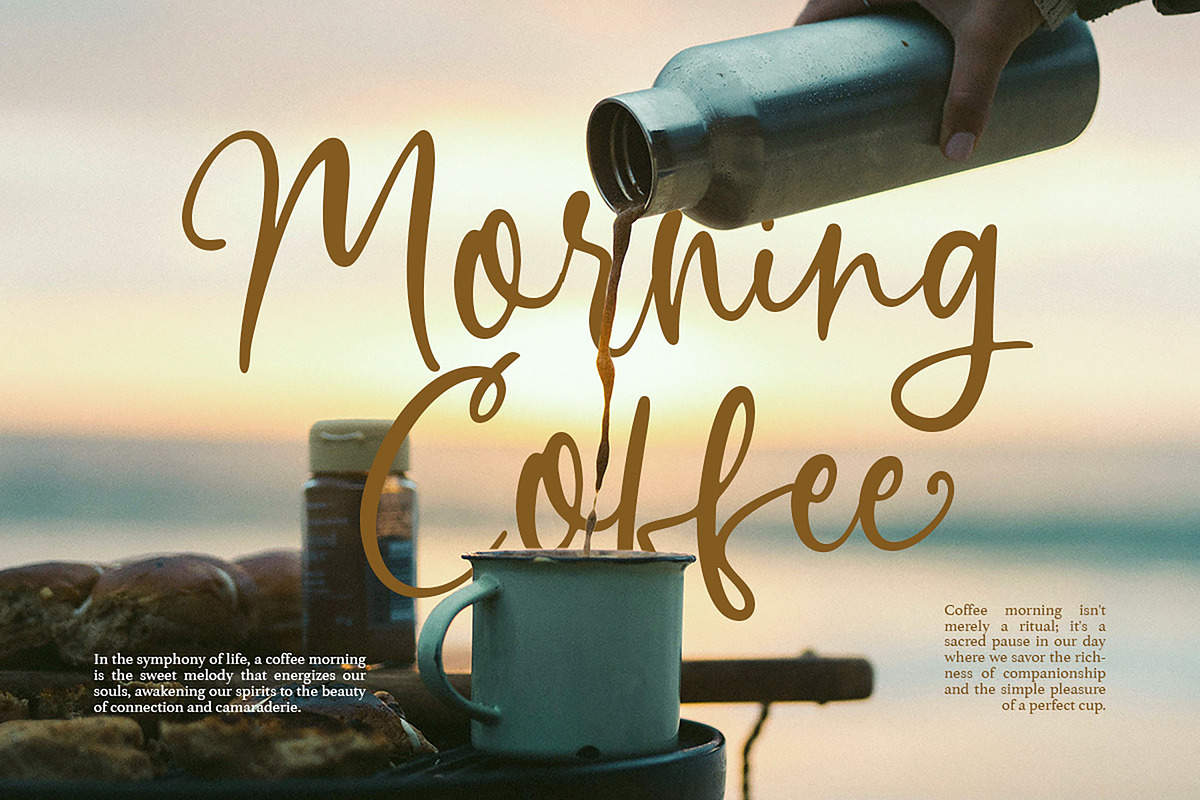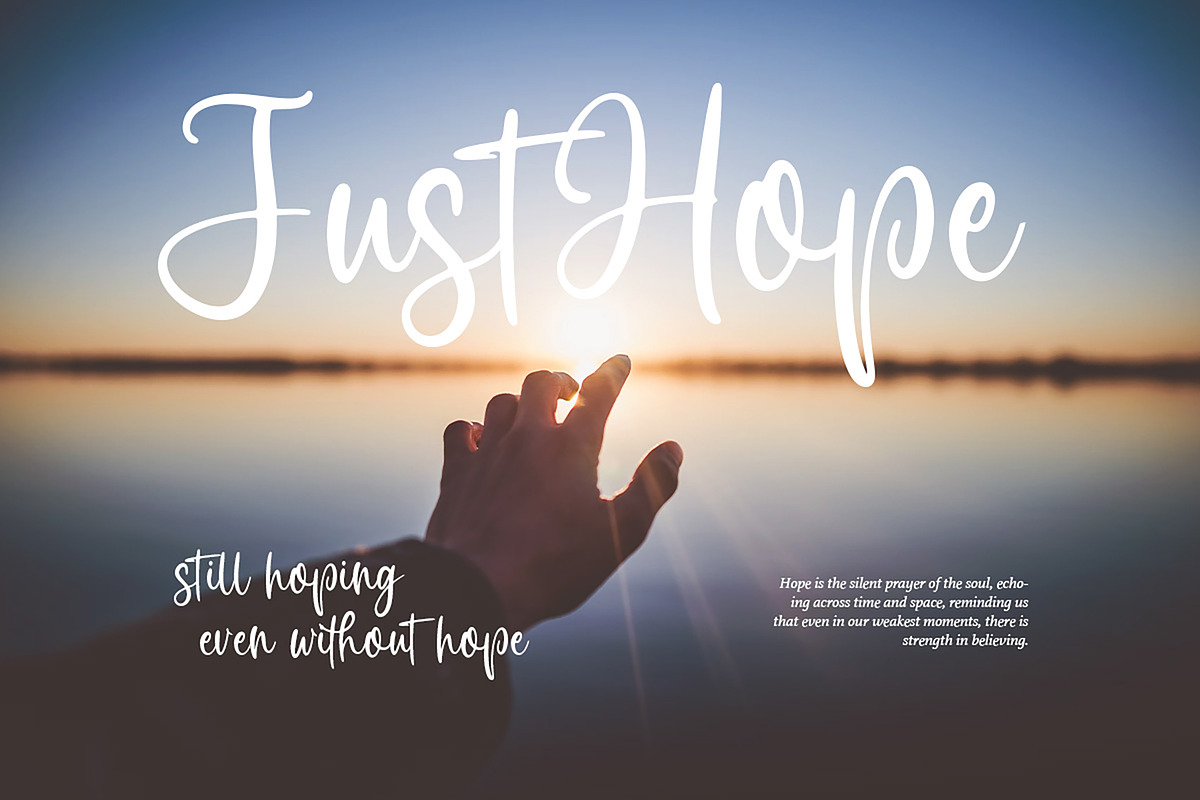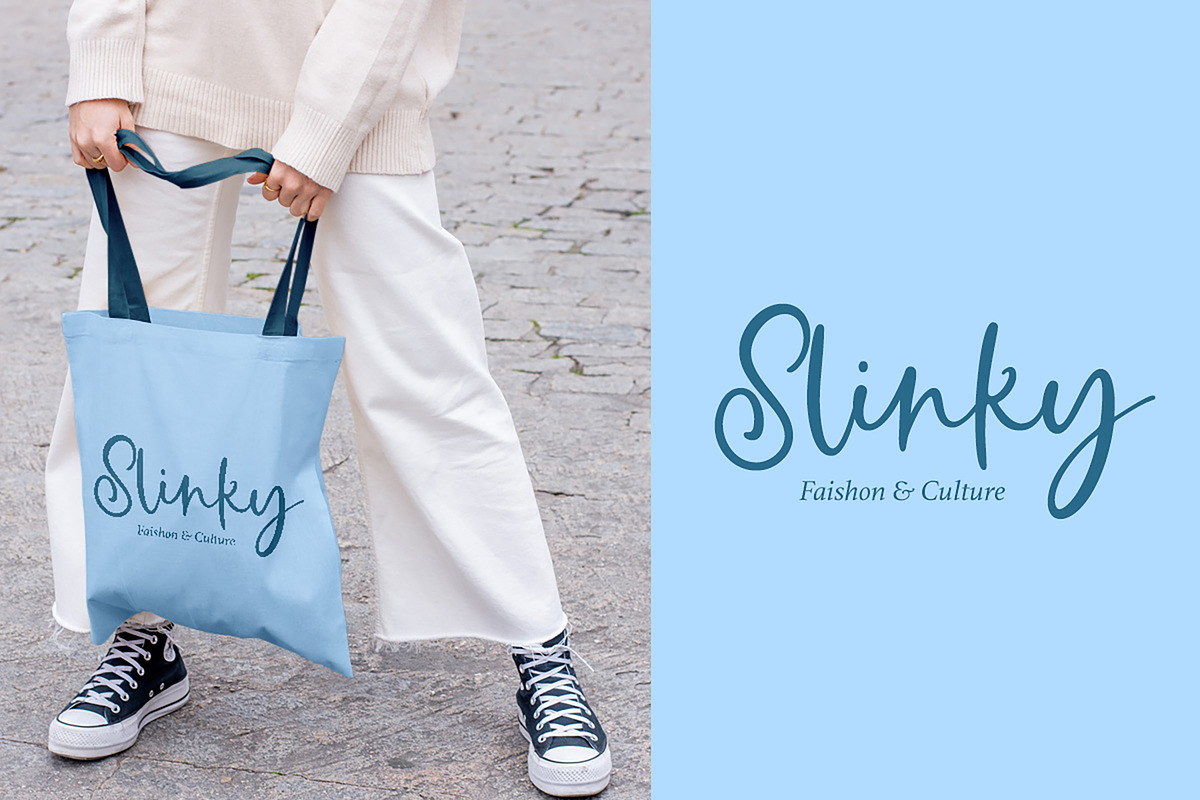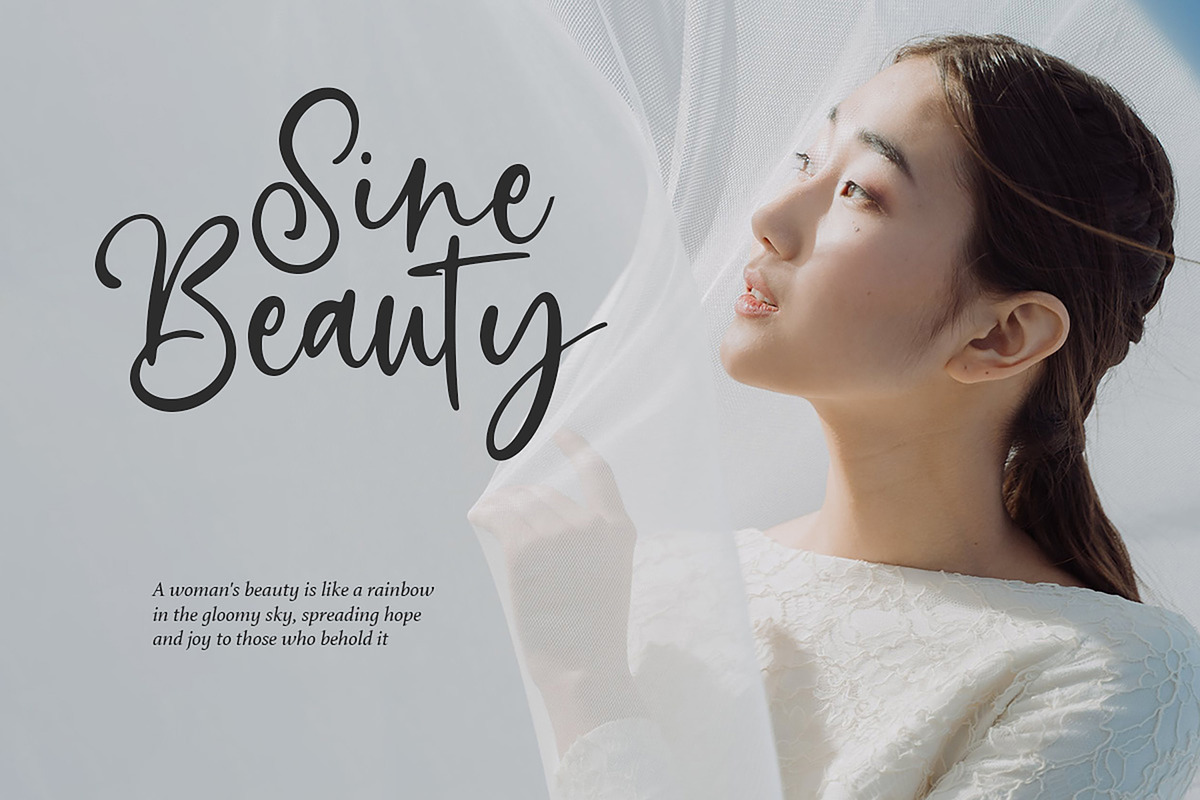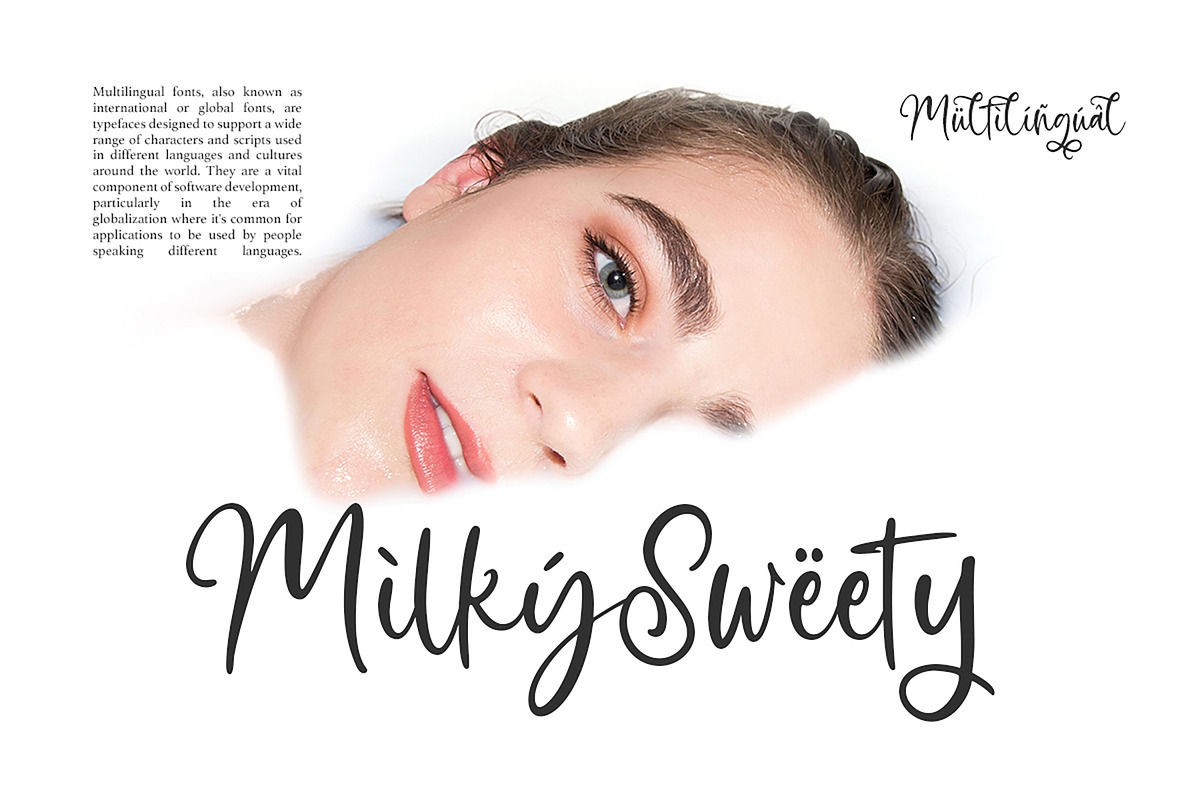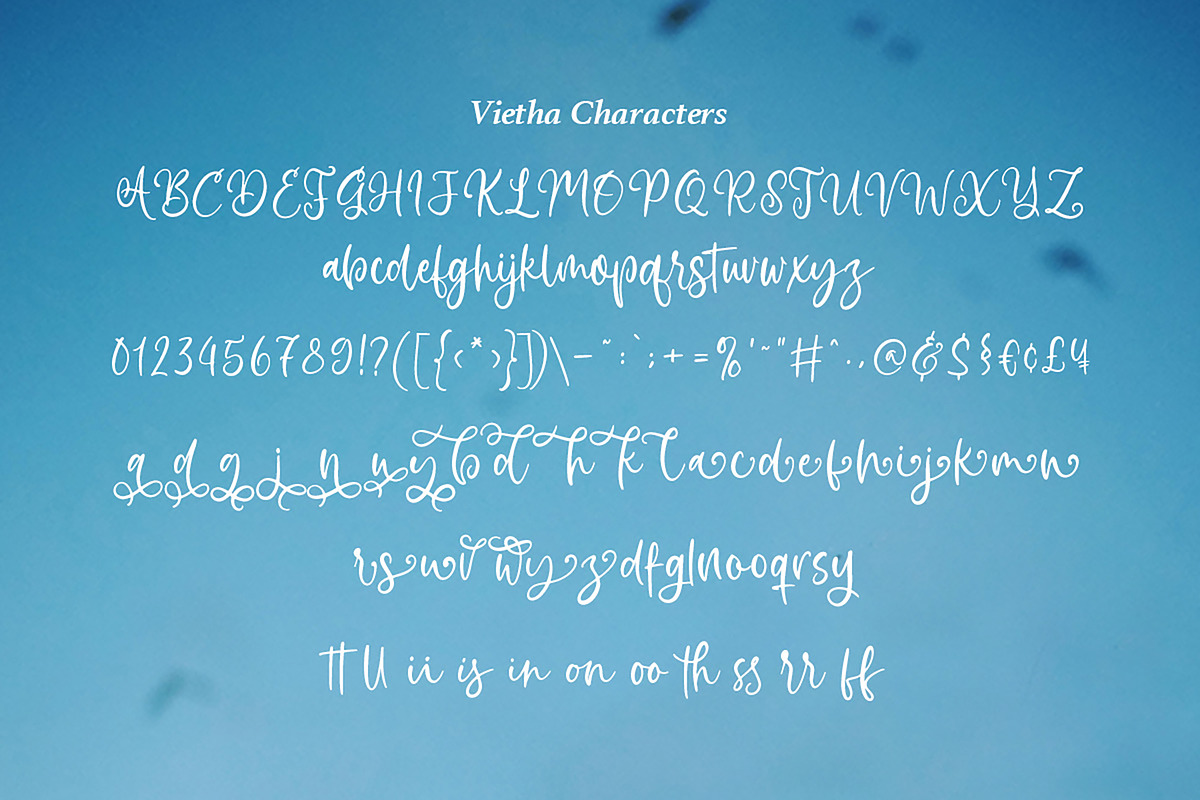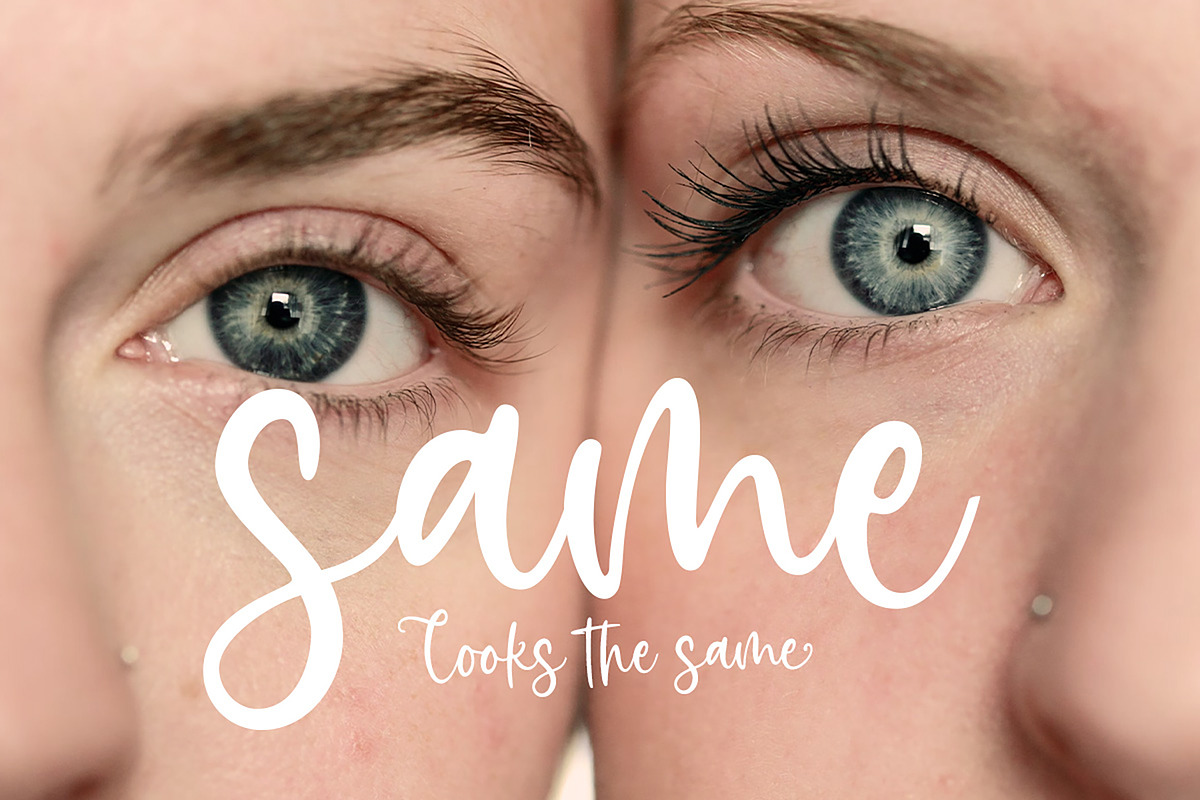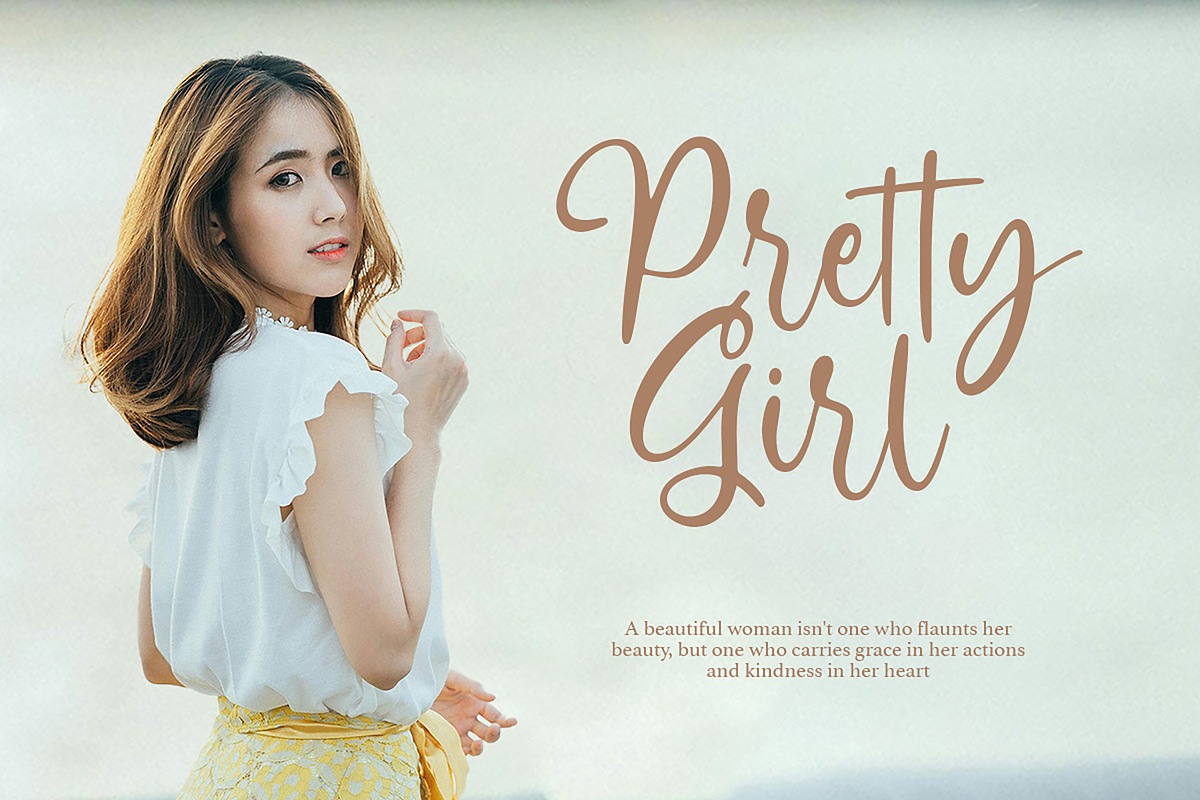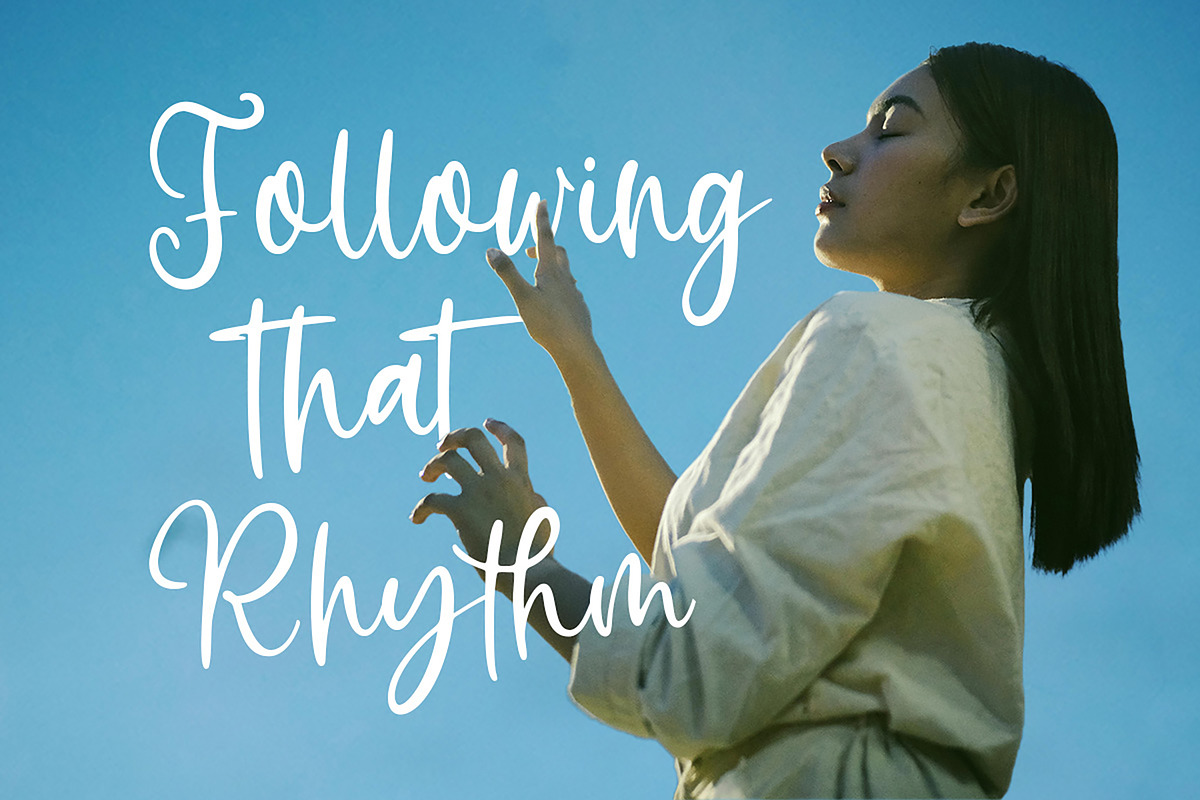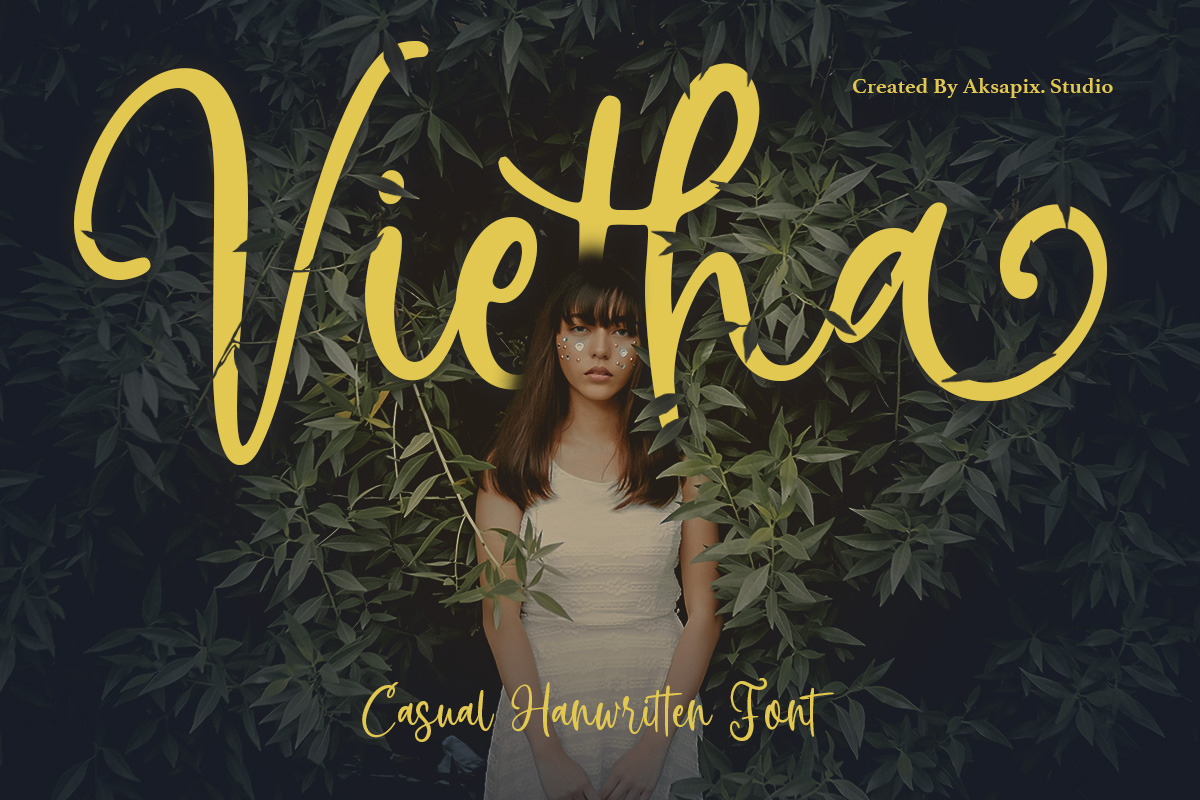
Vietha - Casual Hanwritten Font
Introducing Vietha - Where Casual Elegance Meets Handwritten Charm
Unlock the perfect blend of casual elegance and handwritten charm with Vietha - a delightful font that brings a touch of personality to your projects. With its natural strokes and relaxed vibe, Vietha adds a sense of warmth and authenticity to any design. Whether you're designing social media graphics, branding materials, invitations, or product packaging, Vietha's versatile designs ensure stunning results in a variety of contexts. A casual appearance adds a touch of personality to your designs, helping them stand out from the crowd.
Punctuation & Numbers
Experience the charm of handwritten typography with Vietha and let your creativity flow freely. Whether you're crafting personal projects or professional designs, Vietha is the perfect companion for adding a touch of warmth and personality to your work.